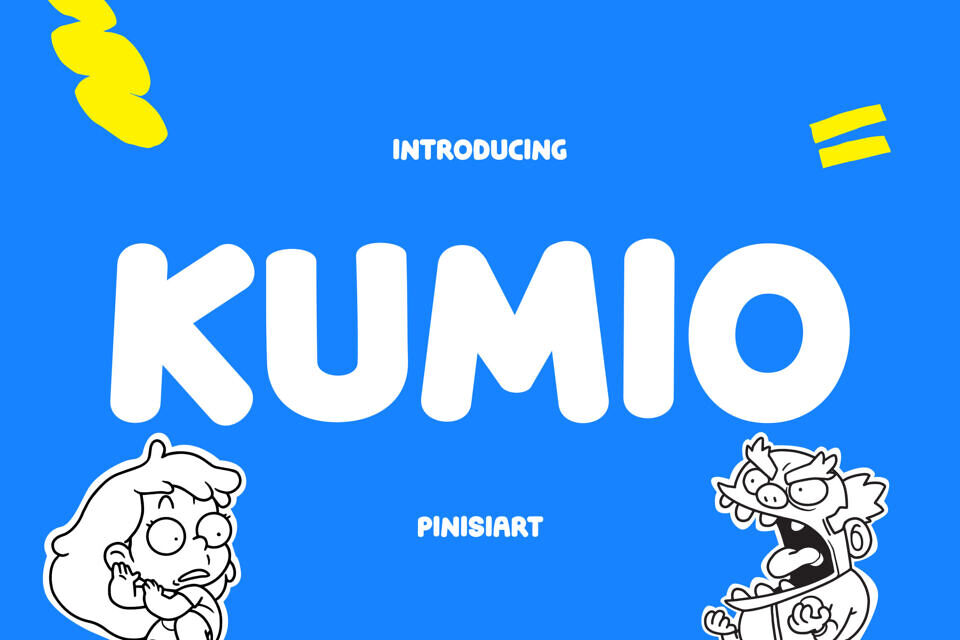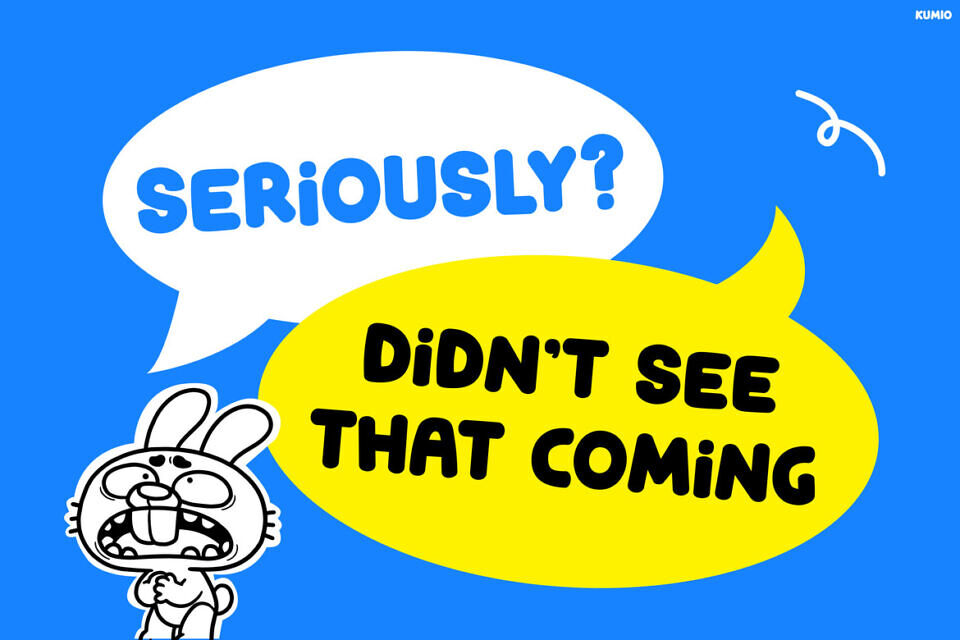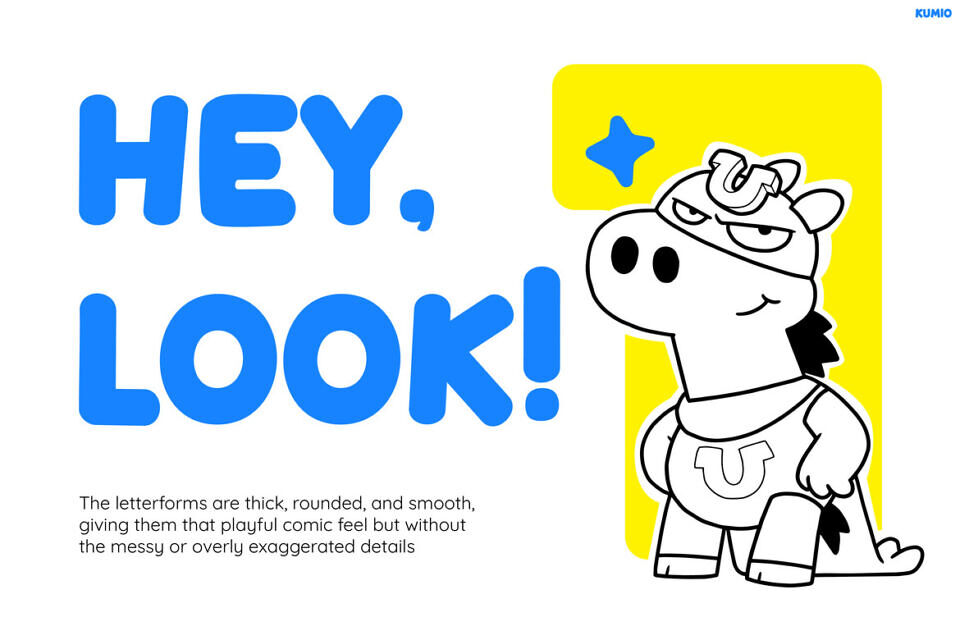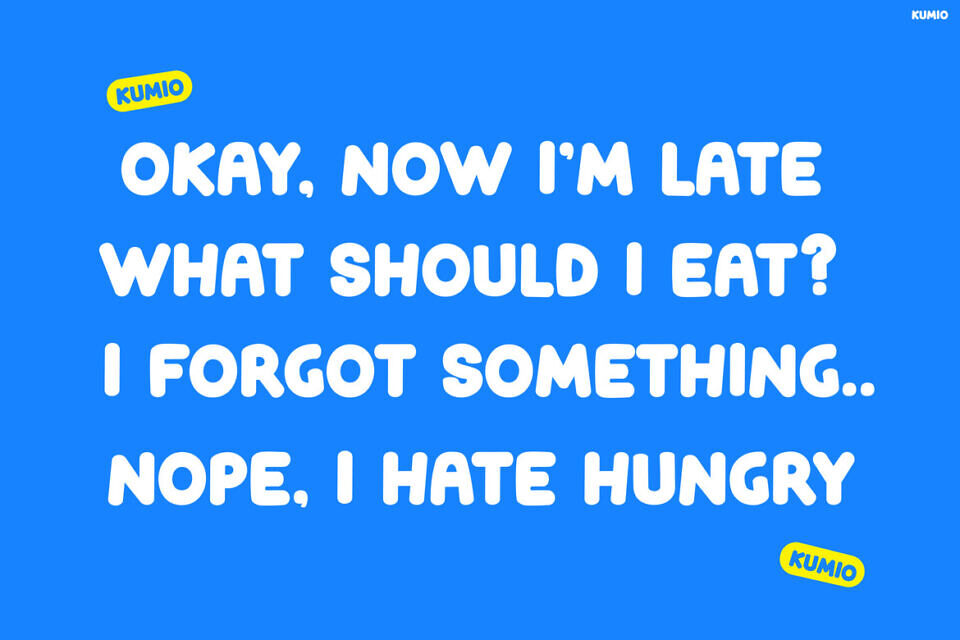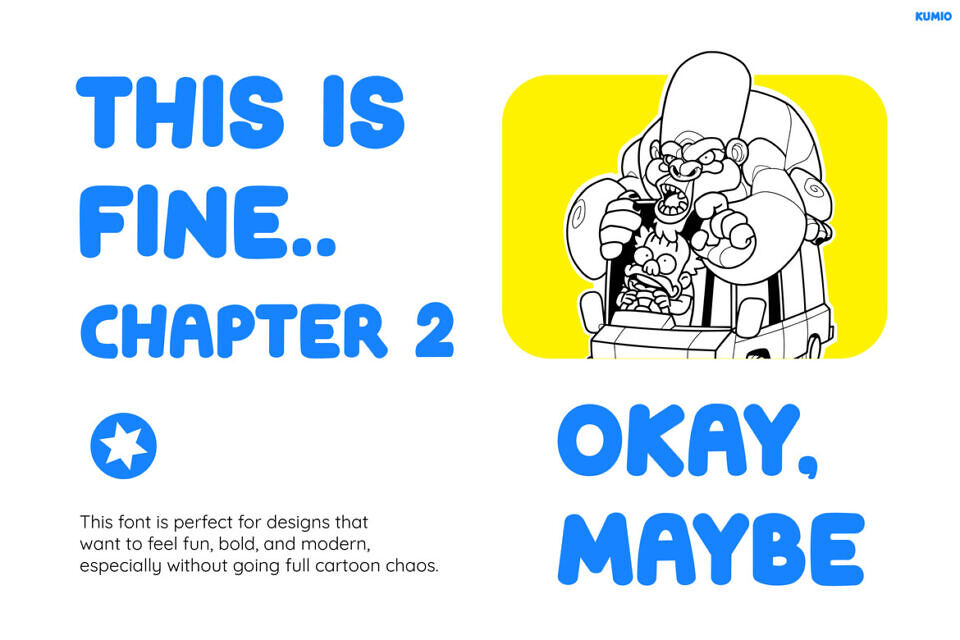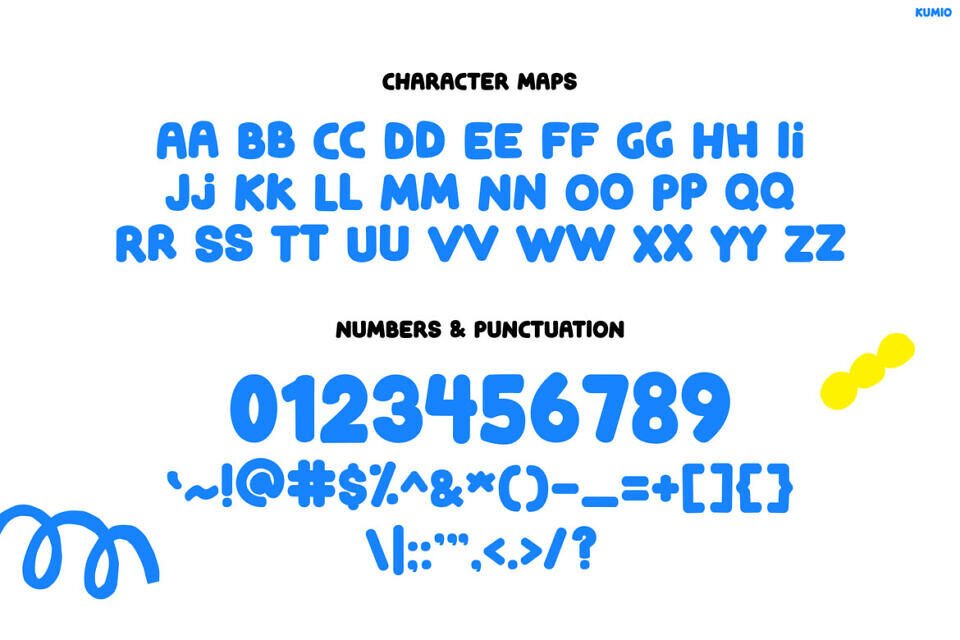
Kumio brings a bold, bubbly personality that instantly grabs attention, while also delivering a fun and friendly visual style. Moreover, its chunky shapes and smooth curves create a playful rhythm that feels alive in every letter. In addition, the comic-style aesthetic makes it highly engaging, so your designs look more expressive and full of character.